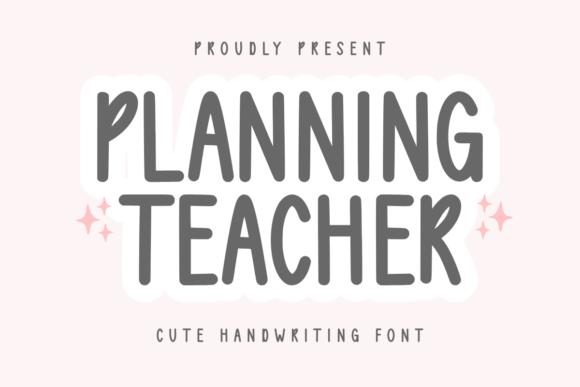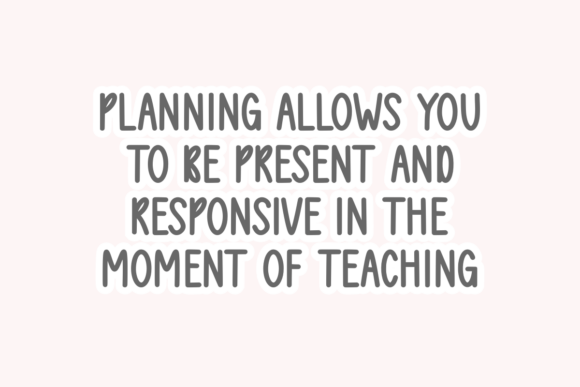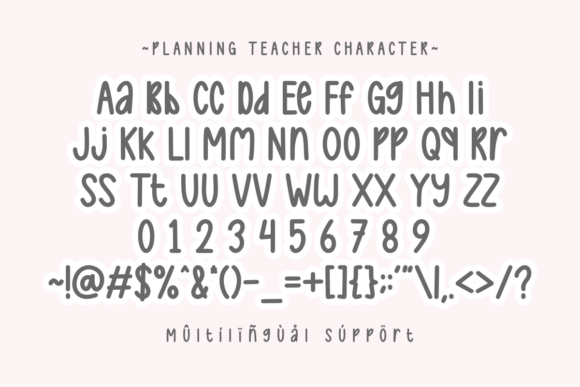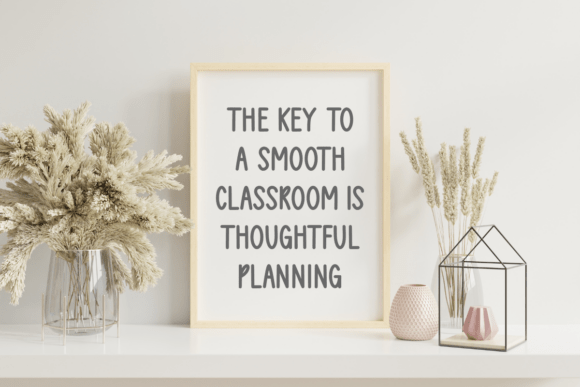
Planning Teacher Font
About the Planning Teacher Font
The wait is over! The incredible Planning Teacher Font is now available for your design toolkit. Planning Teacher is a cute sans serif font. That is suitable for perfecting your creative projects such as stickers, notes, planners, SVG quotes, t-shirts, wall art, Cricut, craft, embroidery, posters, cards, and many other ideas.
Its friendly, slightly rounded forms make it ideal for projects needing a touch of playful approachability—children’s books, branding for educational products, or social media graphics. Avoid using it for large blocks of body text or UI elements; the character spacing isn’t optimized for readability in such contexts.
Pairing it with a clean sans-serif like Open Sans for body copy, or a delicate script font like Great Vibes for accents, will create visually appealing contrasts. A geometric sans-serif like Montserrat could also provide a modern counterpoint.
Planning Teacher’s core personality is undeniably cheerful and approachable, making it a strong choice for brands targeting a younger demographic or projects requiring a lighthearted, optimistic feel.
Planning Teacher Font Usage Examples
Planning Teacher Font Example